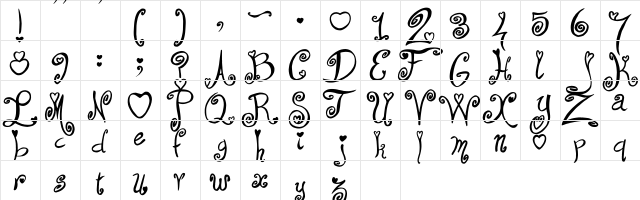
From Me 2 You Regular
Design Context for From Me 2 You Typeface
From Me 2 You is a composed and adaptable typeface that performs quietly and consistently across a wide range of design contexts.